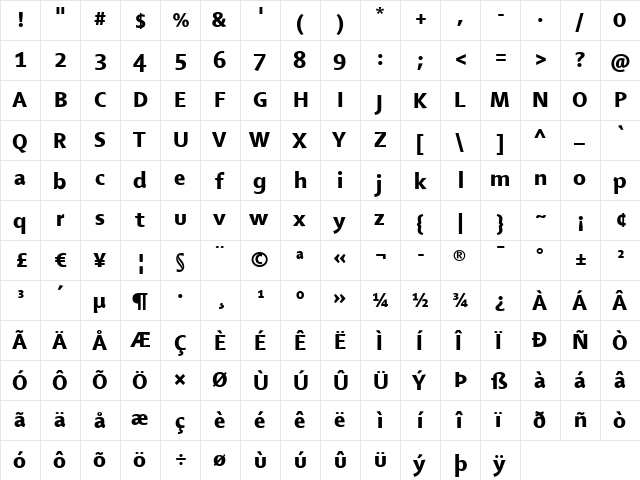
Shaker Regular
Design Context for Shaker Typeface
Shaker is a composed and adaptable typeface that performs quietly and consistently across a wide range of design contexts.